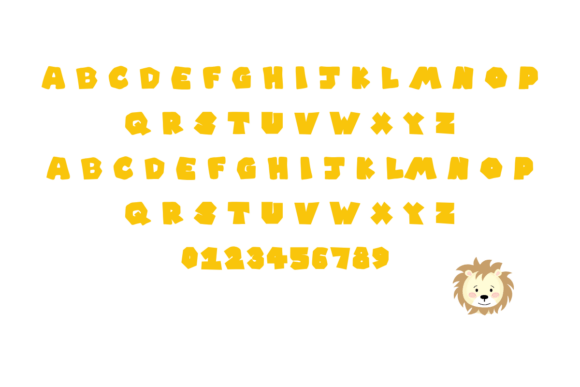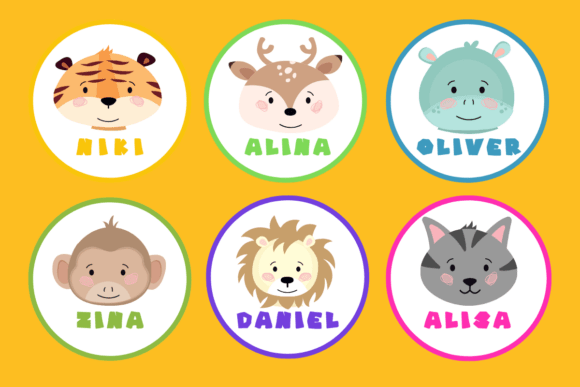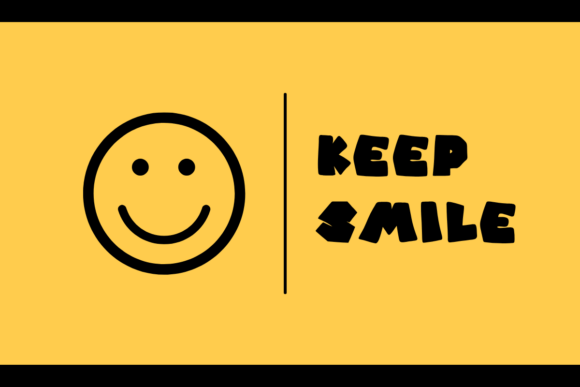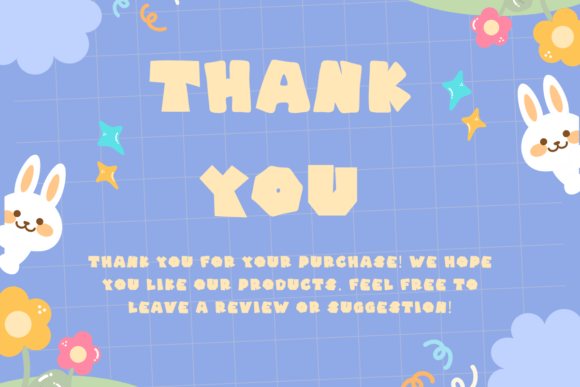
Introduction to Cute Sticker Font
Cute Sticker is a cheerful and colorful display font that brings a playful punch to any design.
With its bold shapes and hand-cut paper style, itโs perfect for kidsโ products, school projects, greeting cards, and fun branding This font turns every word into a joyful expression.
Key Features of Cute Sticker Font
Why Choose Cute Sticker Font?